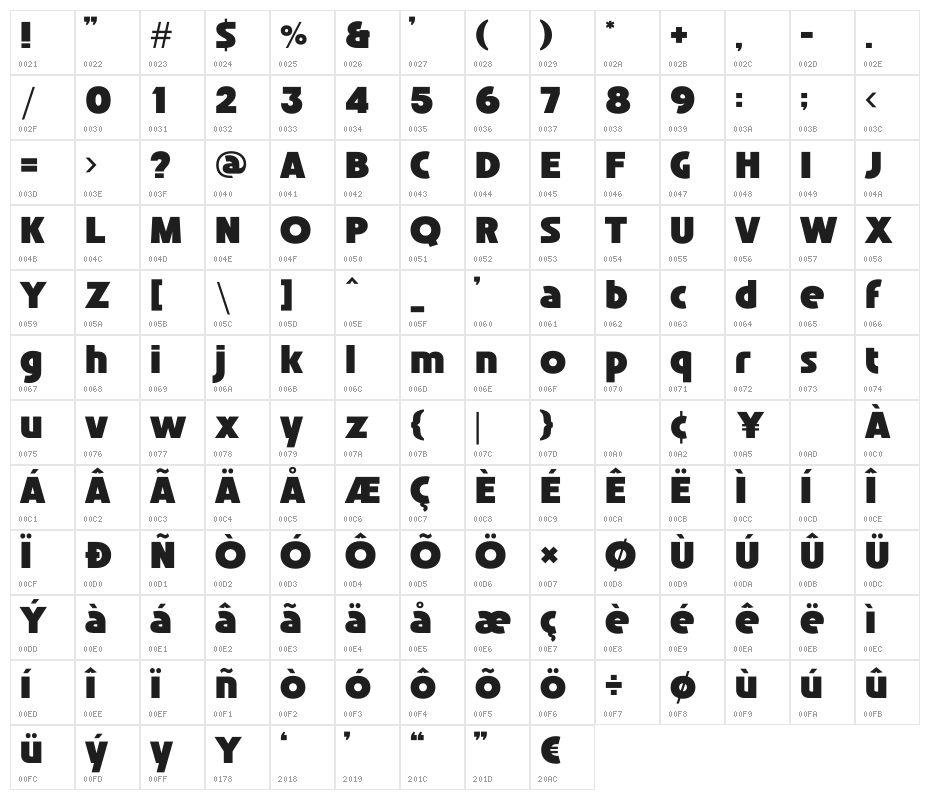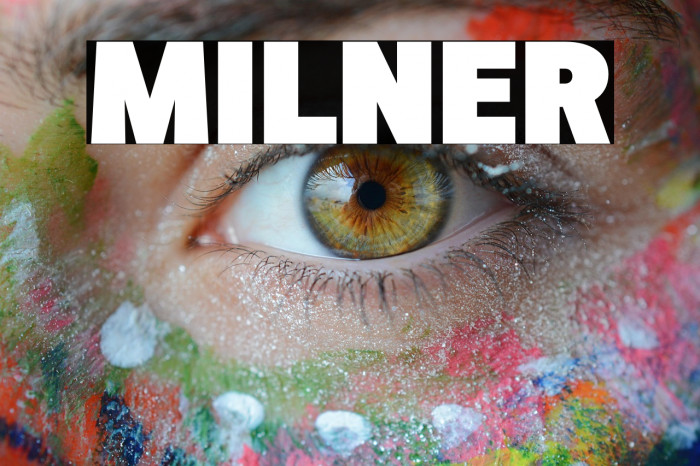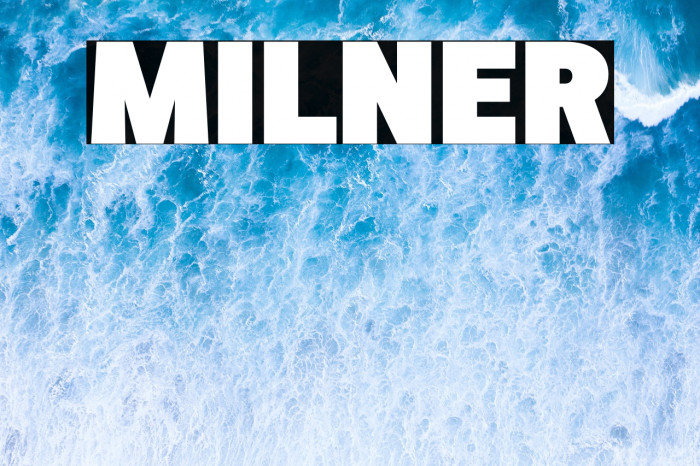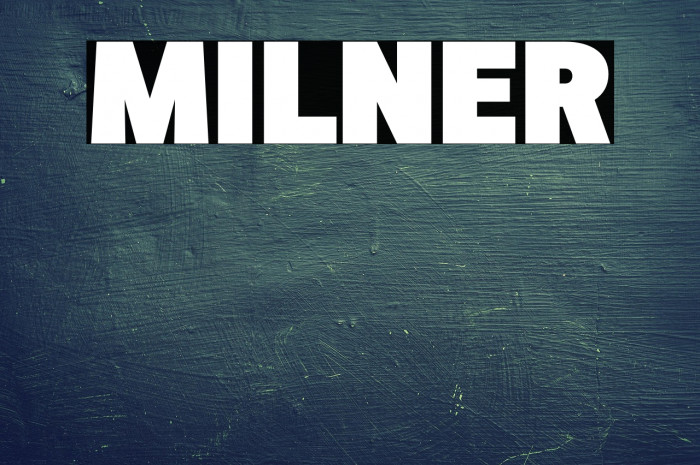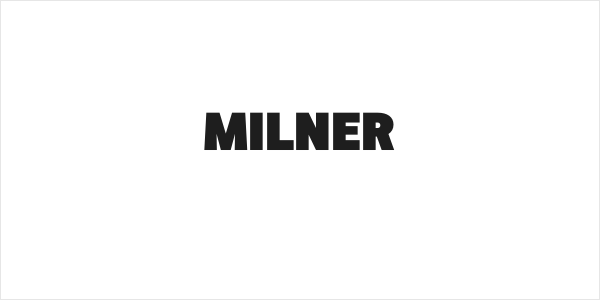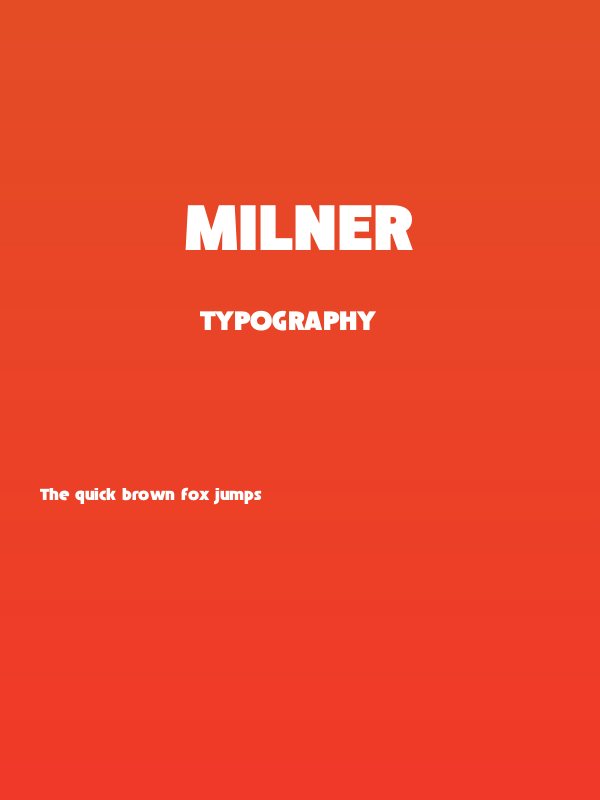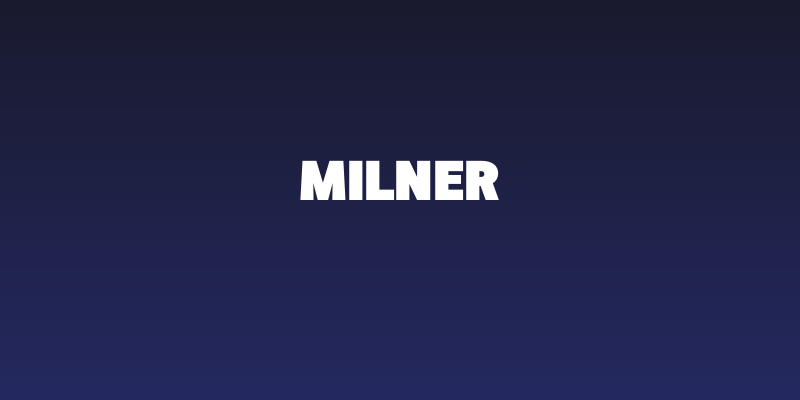
MILNER Font
MILNER Description
This font features bold, thick strokes with a strong presence, making it ideal for attention-grabbing headlines and impactful designs. The characters are well-defined with a consistent weight throughout, providing a sense of stability and confidence. The uppercase and lowercase letters maintain a uniform appearance, ensuring readability and coherence. The numerals and special characters are designed to match the boldness of the alphabet, offering a cohesive look across all elements. The overall style is modern and assertive, suitable for projects that require a commanding visual impact.
| Proposed Projects | Ideal for branding, advertising, posters, and any design requiring a bold statement. |